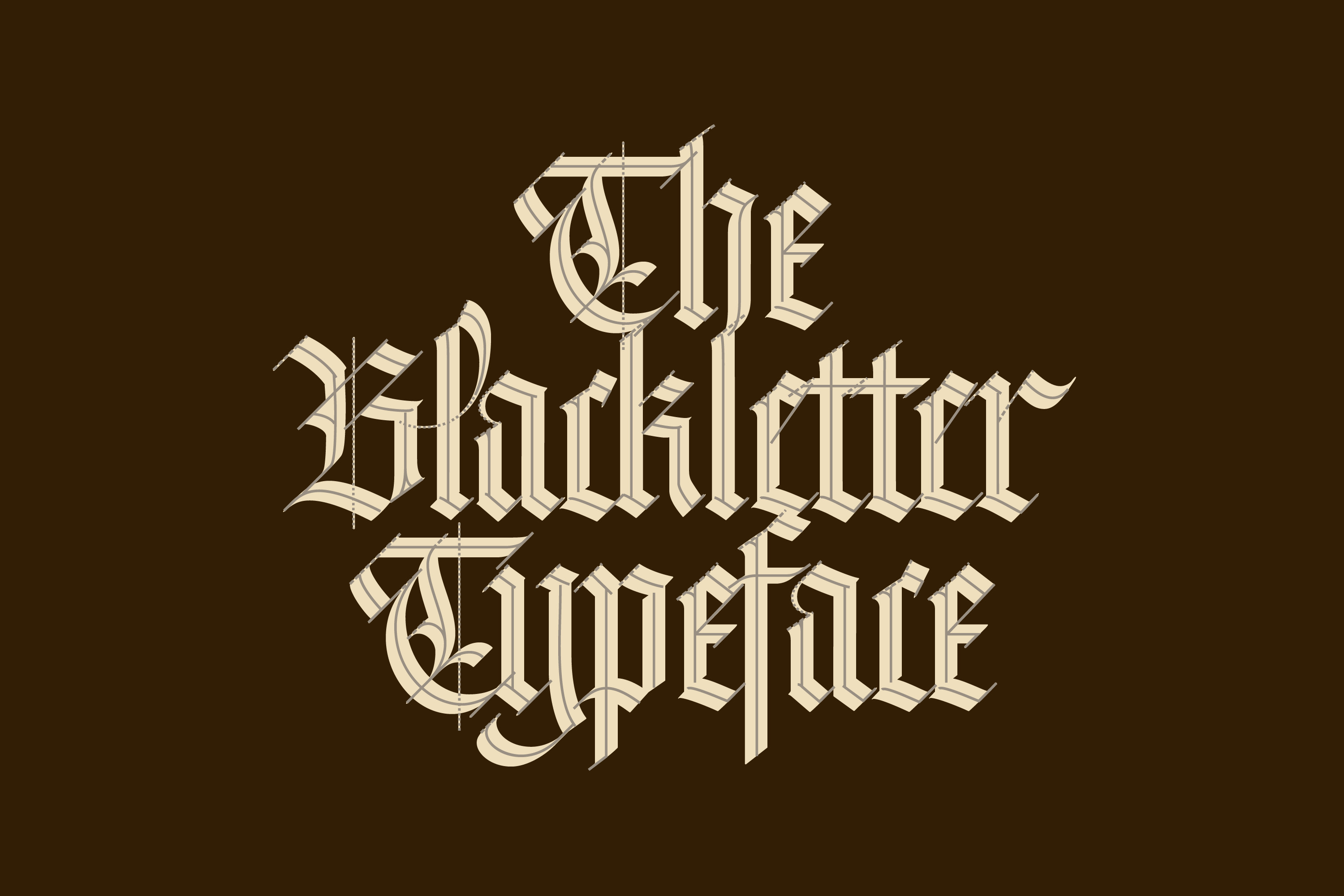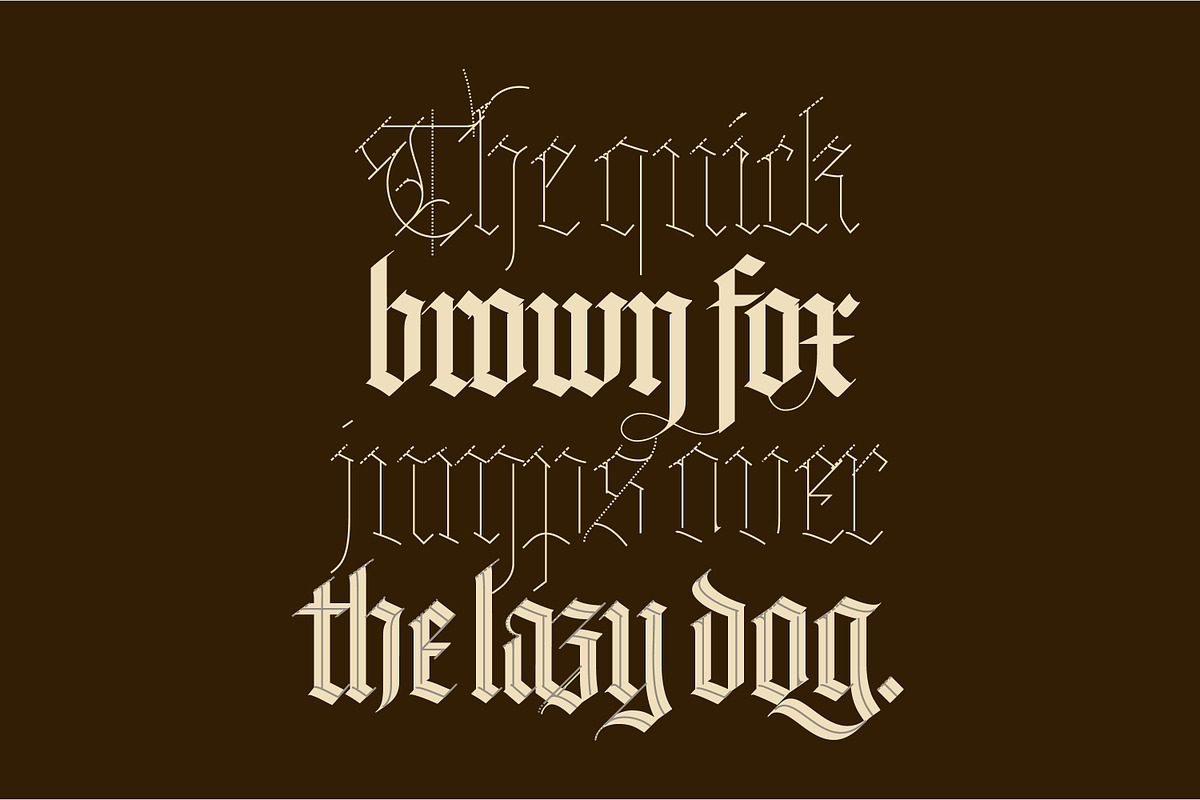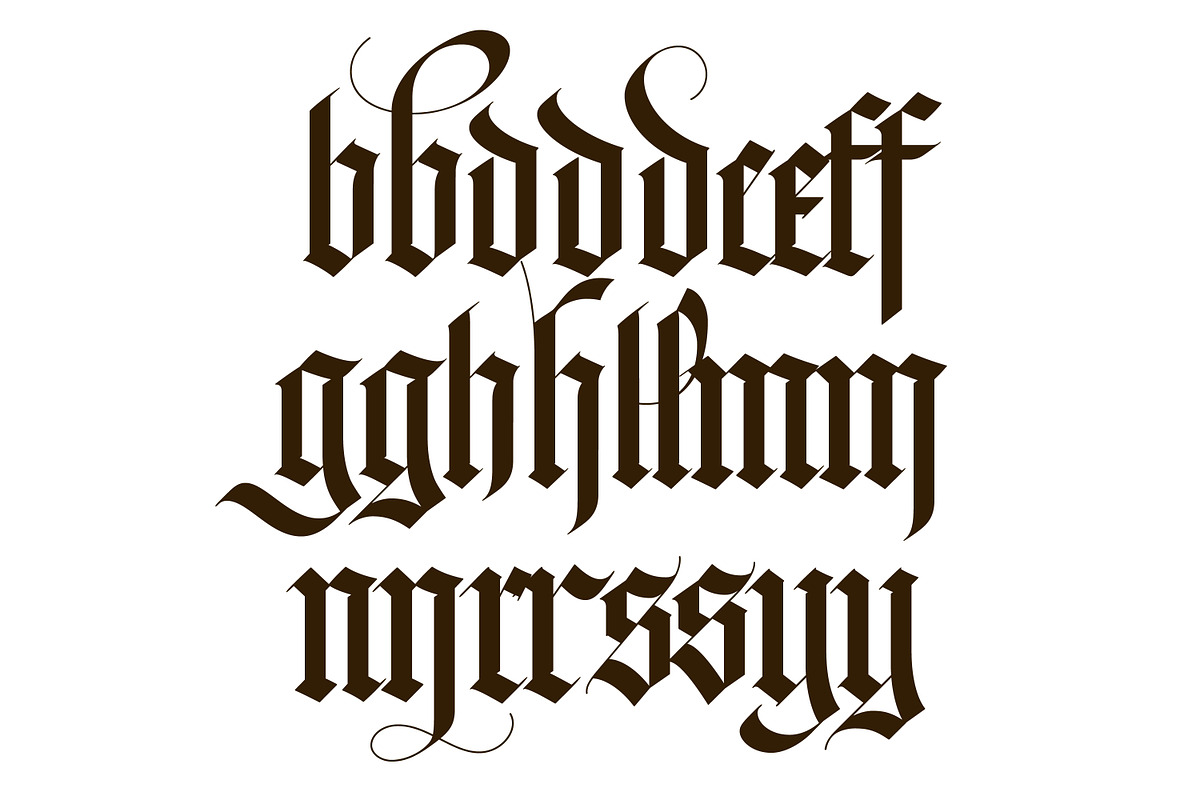
JA Gothic Textura Font
This blackletter typeface is a font I created as a tool to optimize the process of creating a calligraphic composition or even help beginners to study and practice calligraphy in the gothic style. The font has two styles: ‘Pen’ and ‘Skeleton’. The style ‘Pen’ emulates the gothic style made with a broad edge nib calligraphy pen and the style ‘Skeleton’ shows the ductus of the letters, where you need to trace the pen to get the correct shape.